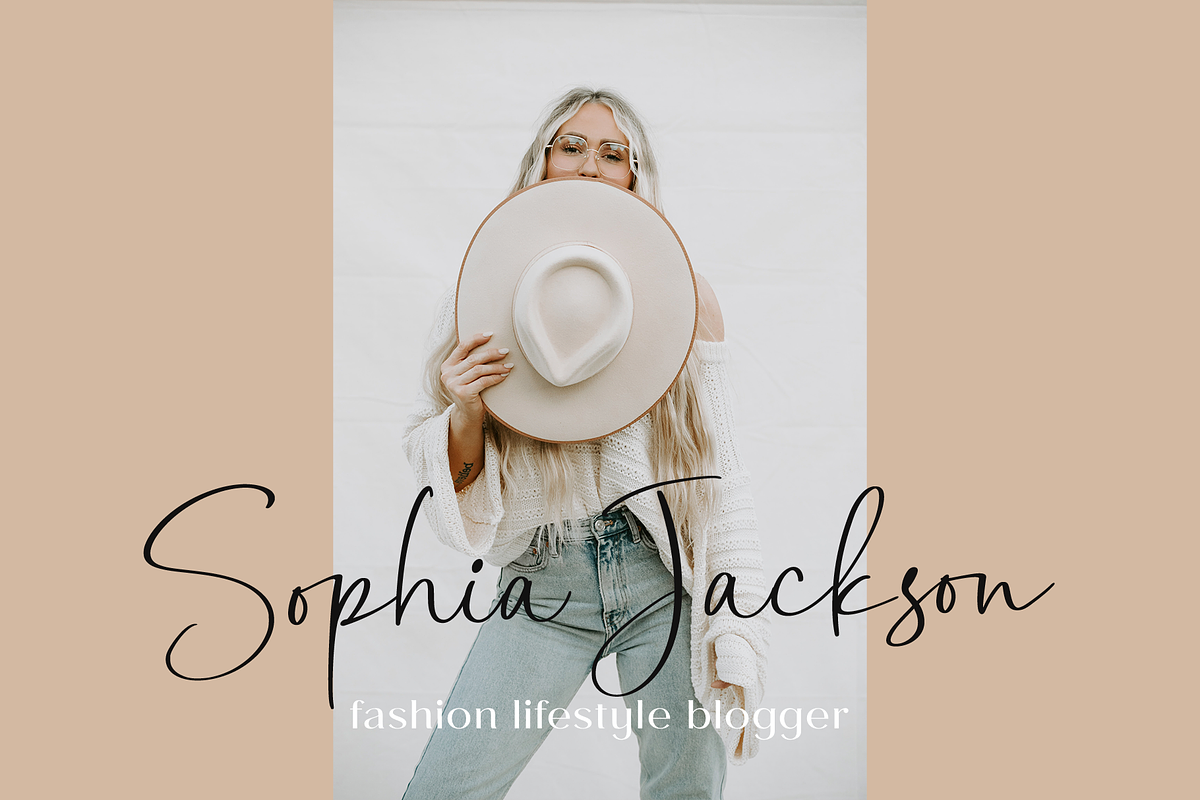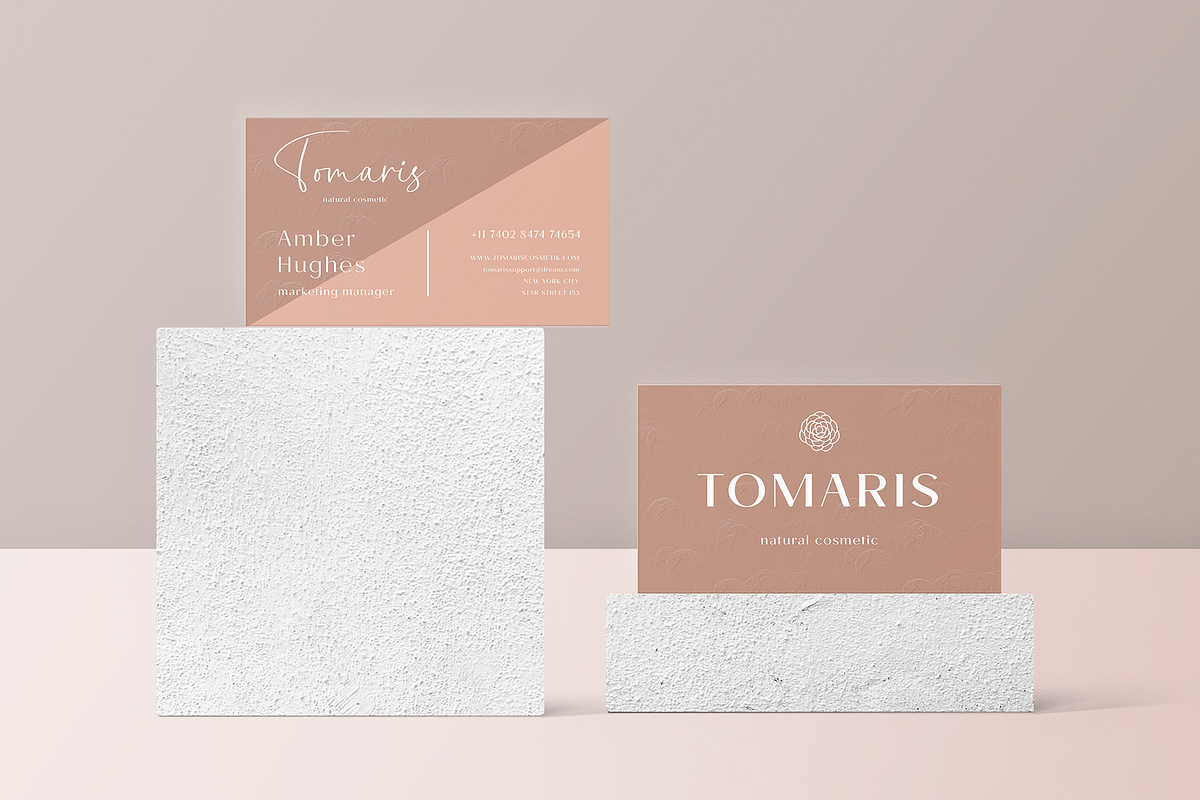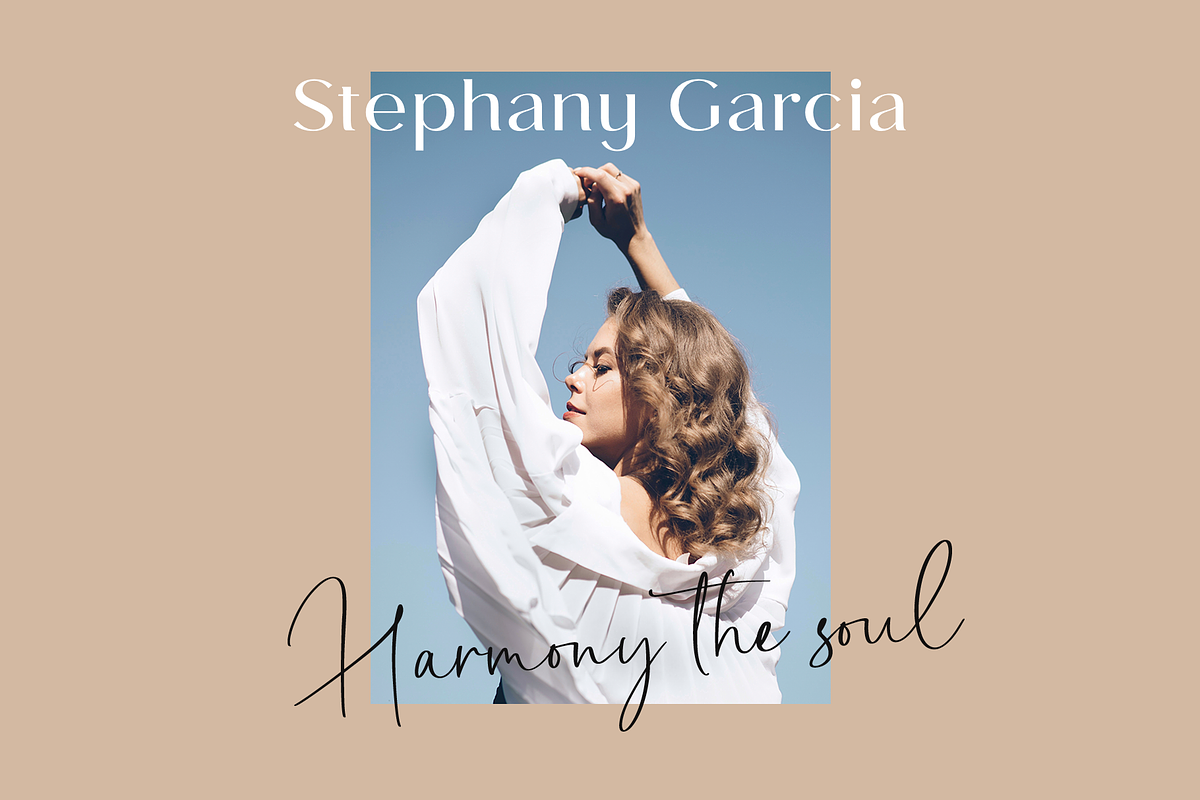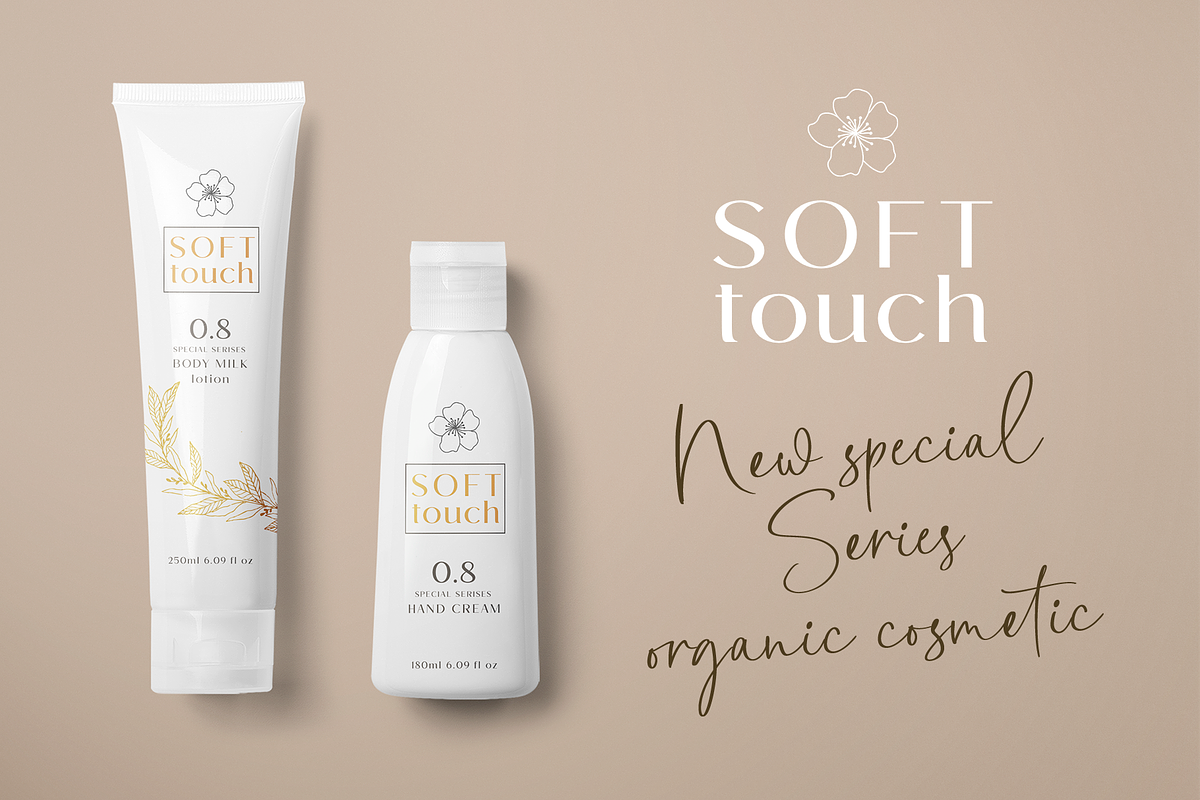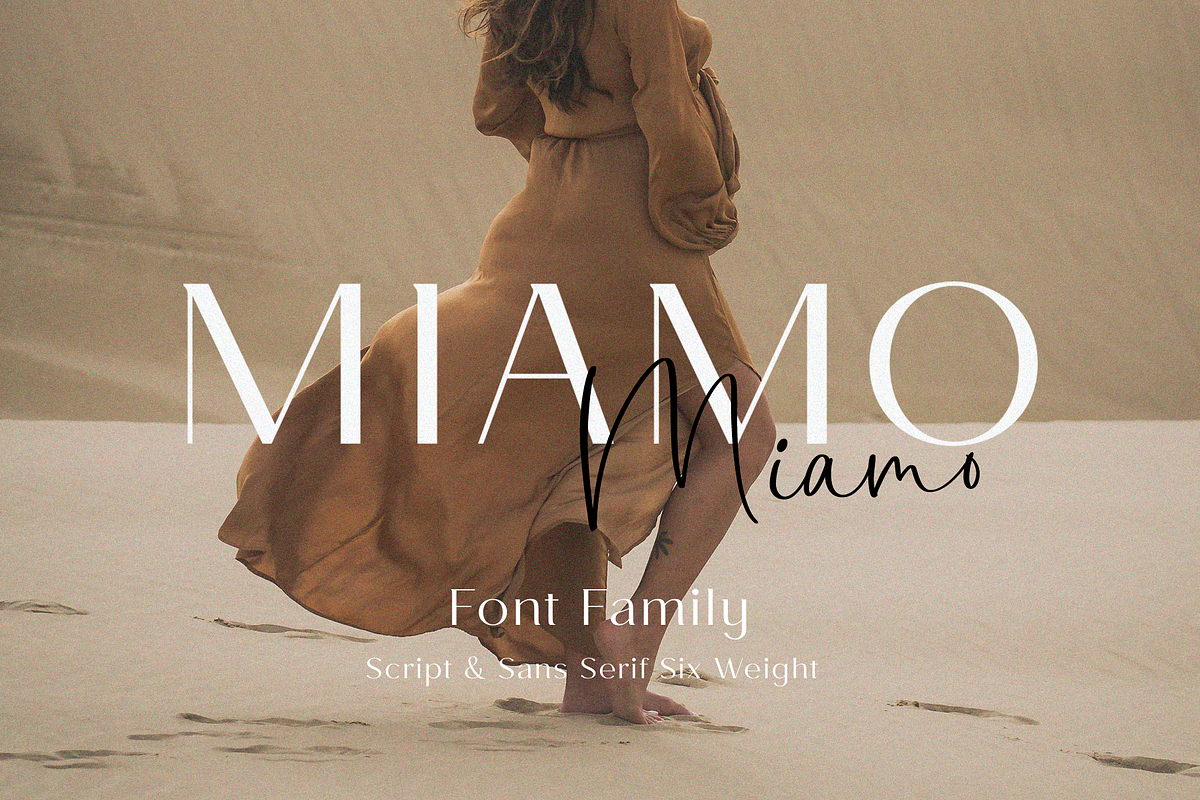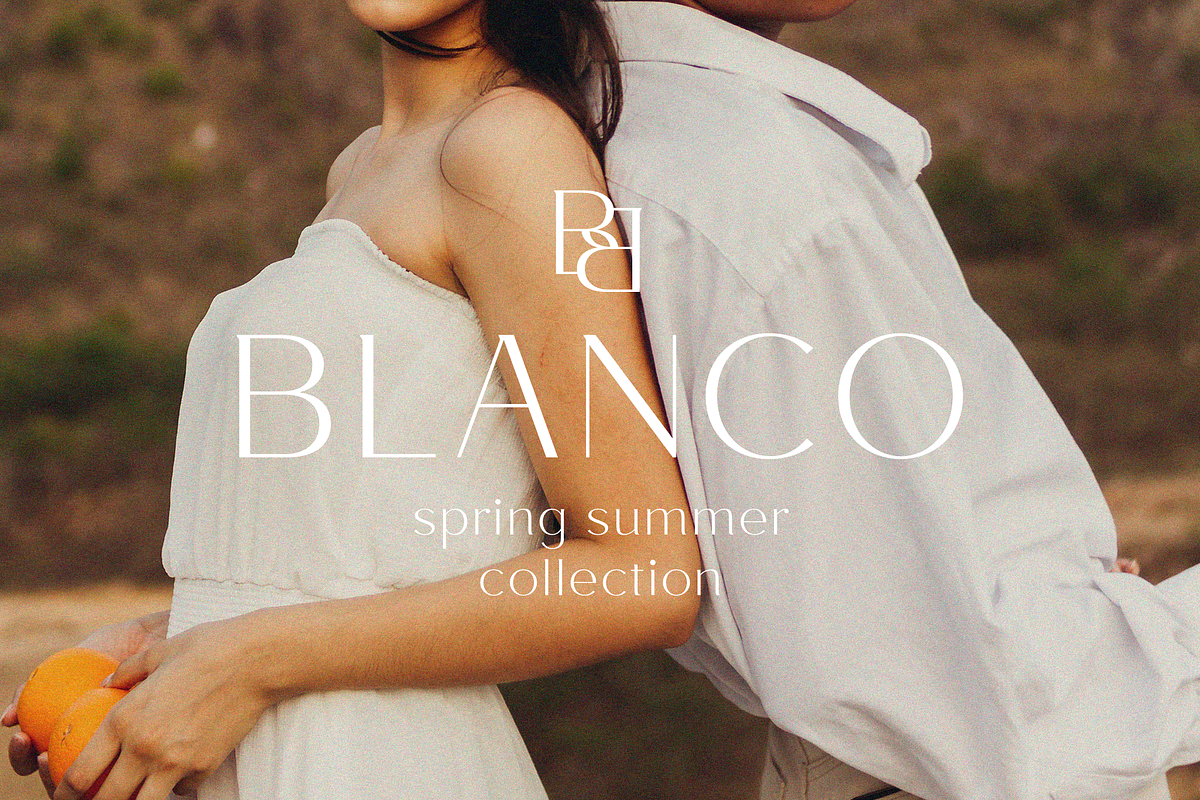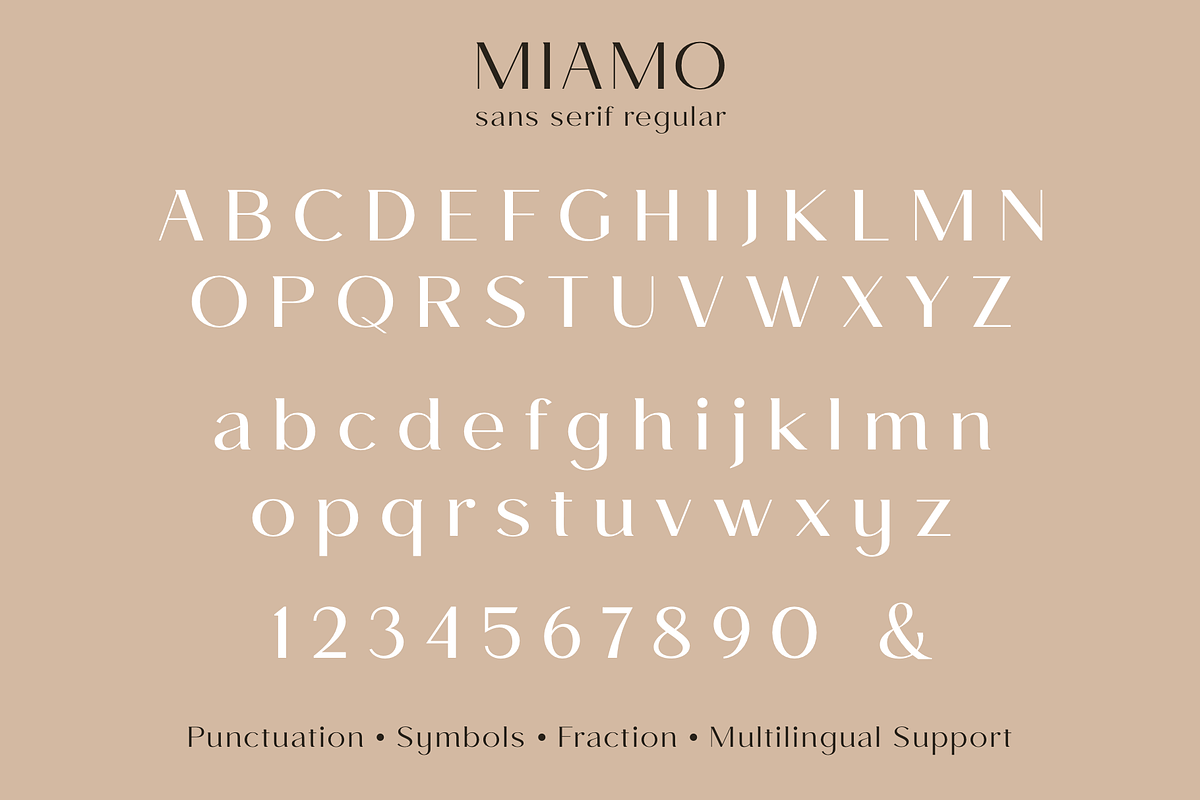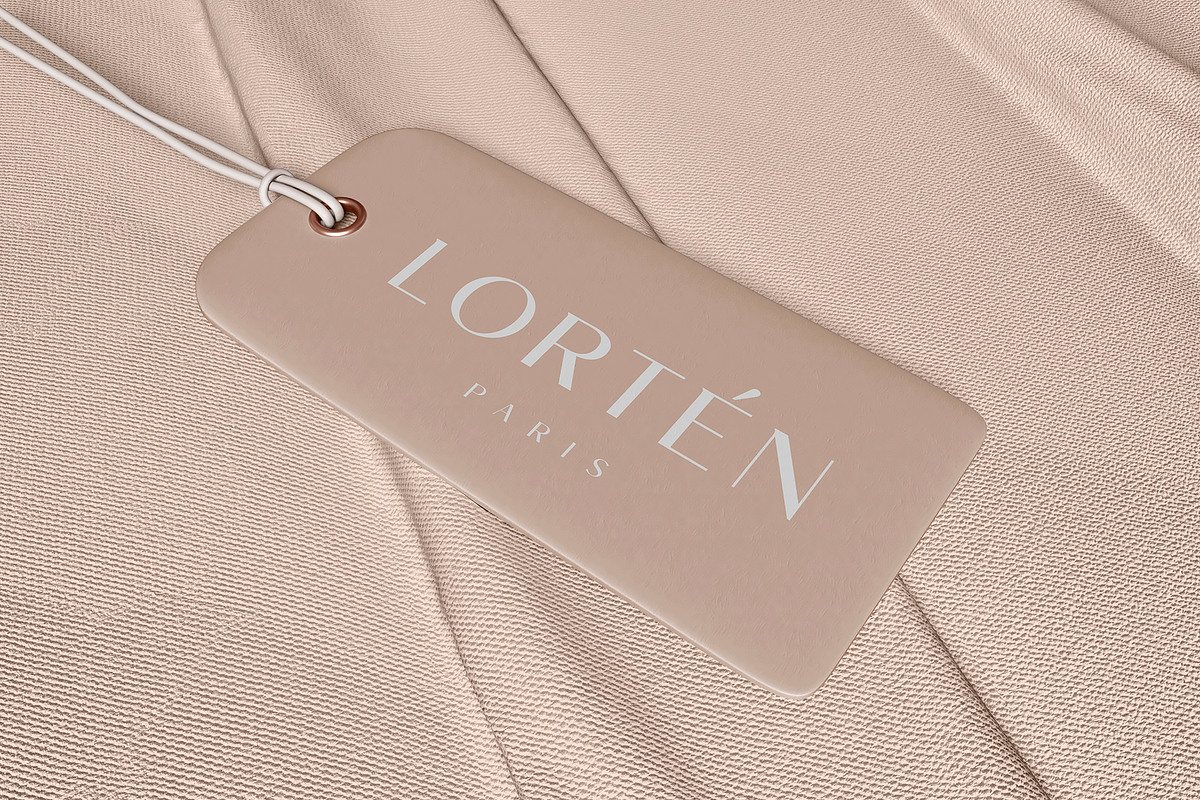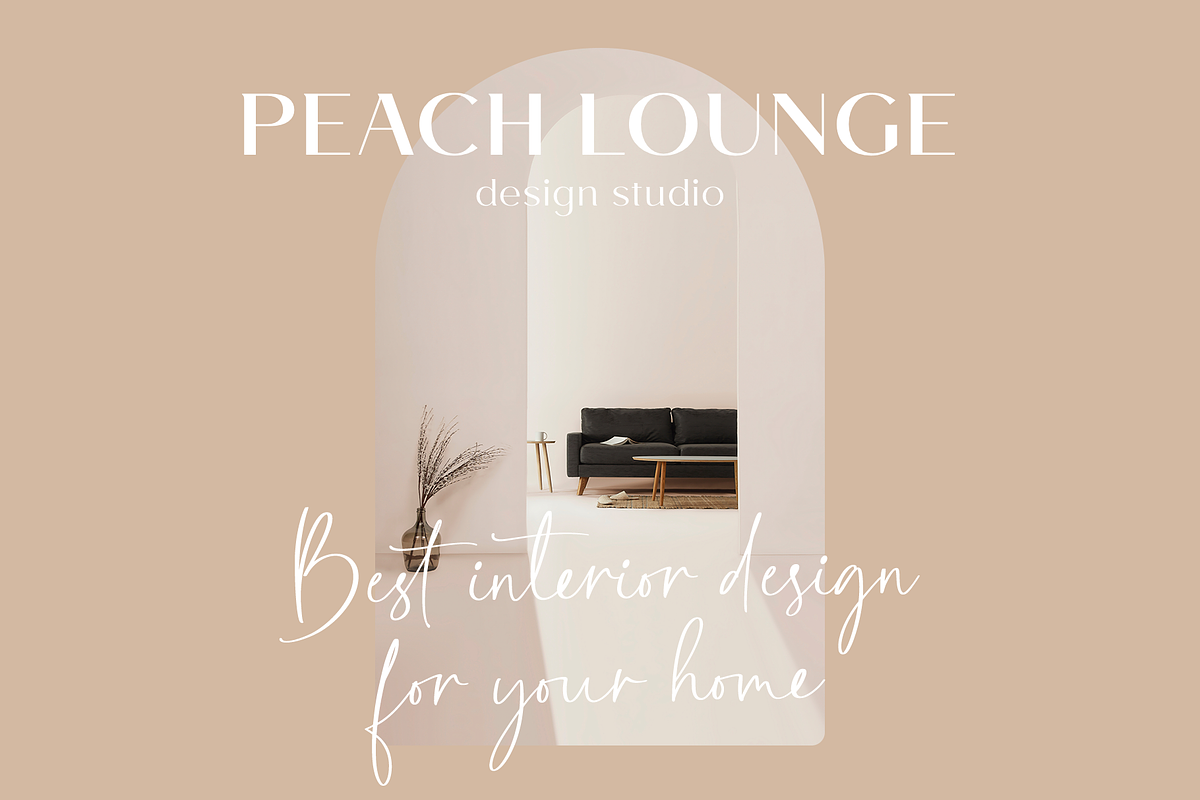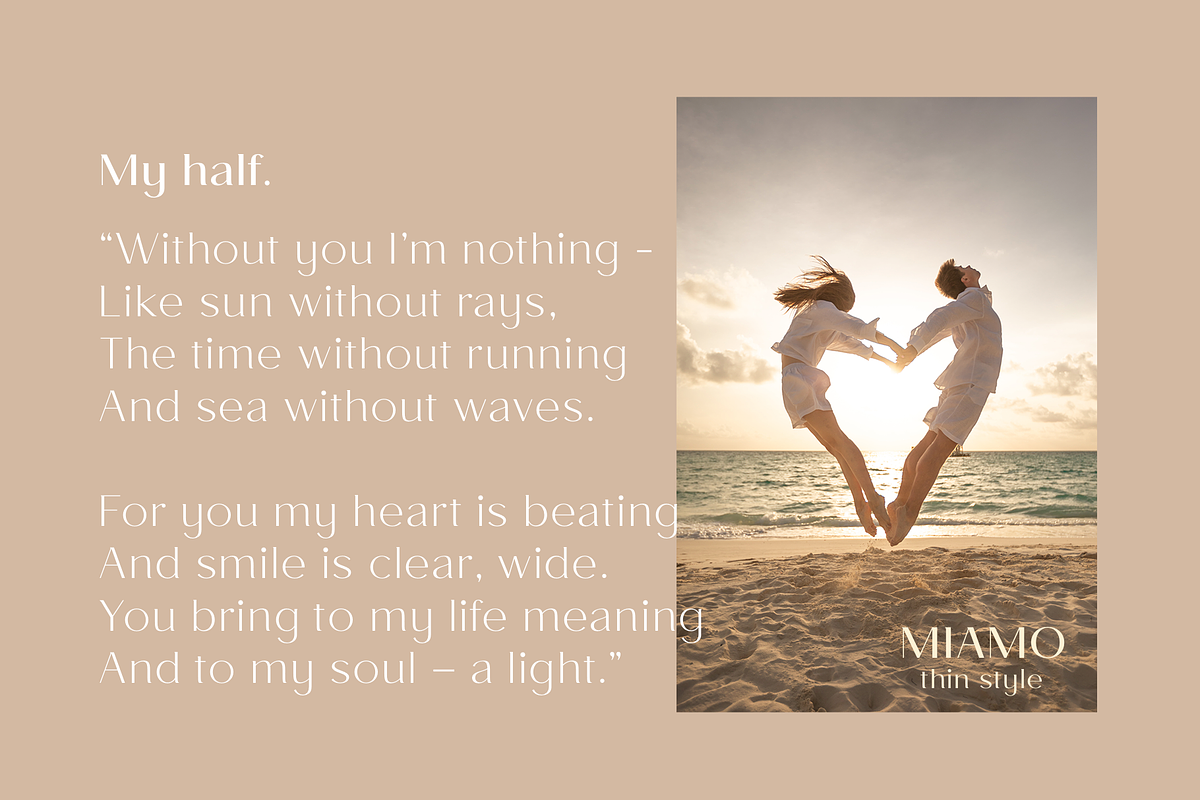
Miamo
Miamo is an elegant and modern font family.
It includes script font and sans serif in six weights from Thin to Bold. Sans serif font is a multi-purpose font that is perfect for any project, it is contrasted, modern and easy to read. With it, you can create logos, use in advertising, packaging, book covers and magazines, headings, descriptions and much more. Handwritten script font elegant and charming, it includes alternatives and a variety of ligatures that will make your project unique. This font is easy to use has OpenType features.
Following international symbols support: ÀÁÂÃÄÅĄÇĆÈÉÊËĘÌÍÎÏÐÑŃŁÒÓÔÕÖØÙÚÛÜŚŠŸÝŹŻŽßàáâãäåçèéêëìíîïðñòóôõöøùúûüýÿąćęłńśšźżž
6 weights sans serif and script font
Full alphabet with Uppercase and Lowercase A-z for Sans Serif and Script font
Numbers, fractions for Sans Serif and Script font
Punctuation and symbols for Sans Serif and Script font
Alternates for Lowercase for Script font
Ligatures for Lowercase for Script font
Multilingual support for Sans Serif and Script font